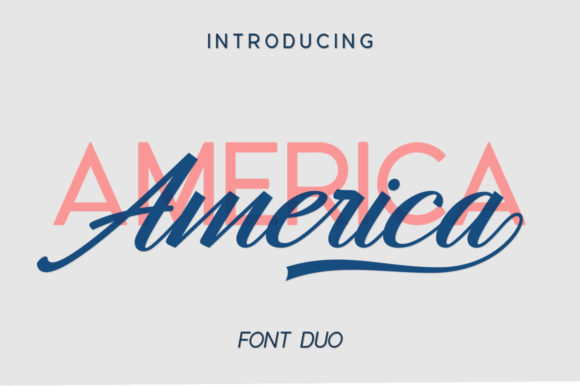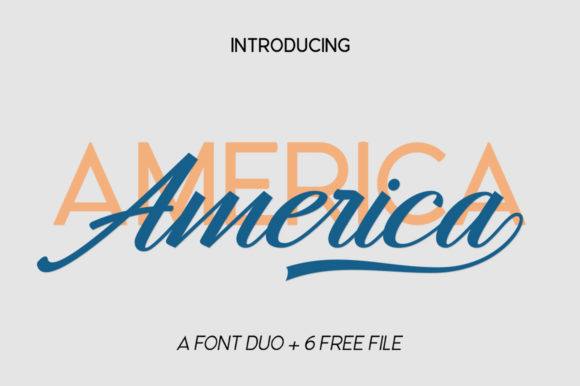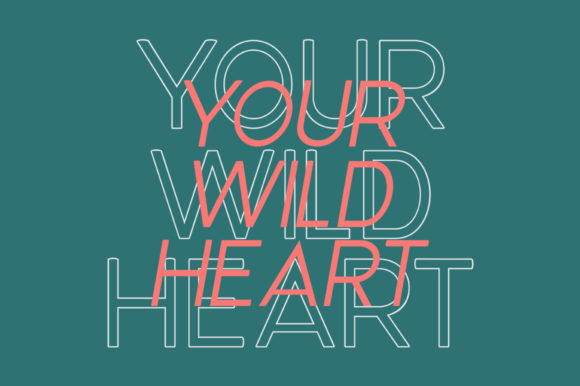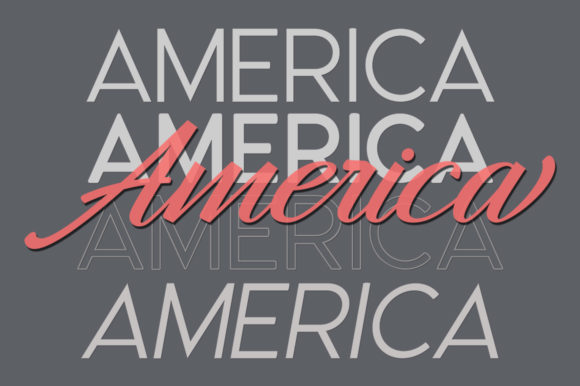
Hangberd America Duo Font
About the Hangberd America Duo Font
Meet Hangberd America Duo Font, a stunning font that brings a touch of elegance and professionalism to any design. America is a beautiful font duo that combines two trends – sleek sans serif caps and unique scripts – into one beautiful package.
Hangberd America Duo’s strong sans serif capitals excel in headlines, logos, and short, impactful branding statements. Its expressive script complements packaging designs or short-form marketing materials. However, the script’s intricate detail is unsuitable for body text or UI elements requiring high readability. Avoid using it for lengthy paragraphs.
The font’s overall personality is bold and modern, yet retains a touch of elegance. It suits brands aiming for a sophisticated yet accessible image – think high-end fashion, premium spirits, or contemporary art.
Pairing it with a clean sans-serif like Open Sans for body text or a geometric sans-serif like Futura for a more minimalist approach will create a balanced design. For a more luxurious feel, consider pairing the script with a delicate serif typeface such as Garamond.
Hangberd America Duo Font Usage Examples
Hangberd America Duo Font Example